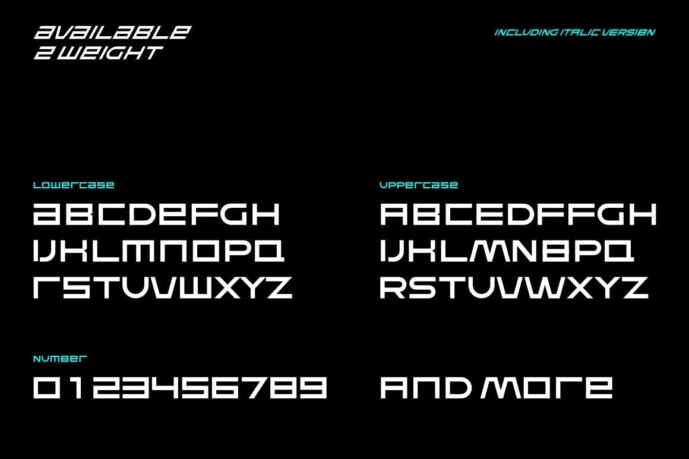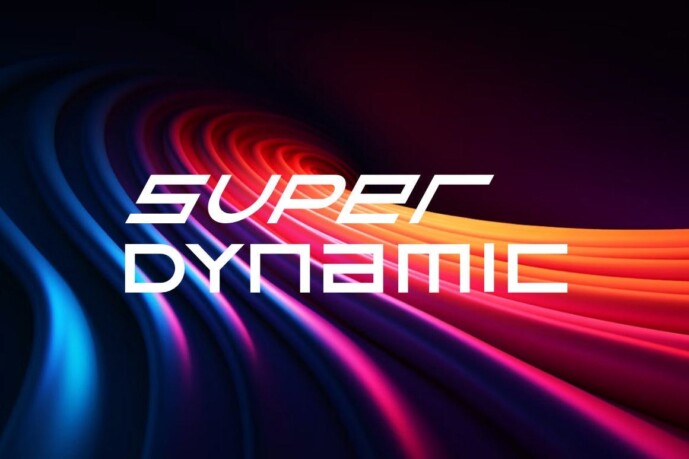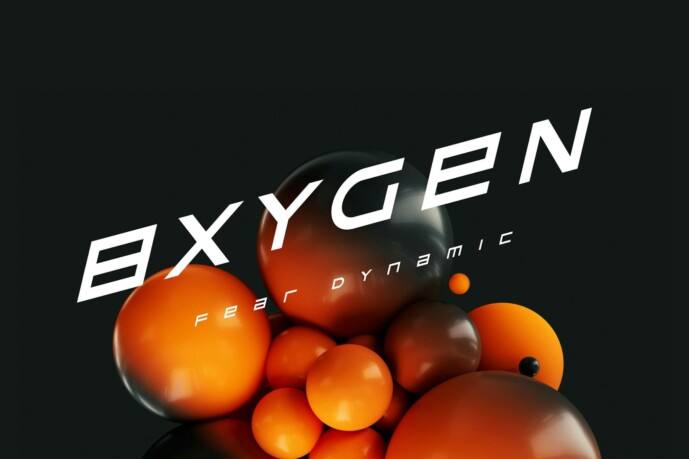
Fear Dynamic Font
Fear Dynamic Font. Create a digital presence as cutting-edge as your ideas. This collection of fonts isn’t just about aesthetics; it is about precision engineering for the digital world. Our fonts feature clean lines, optimal readability on all screens, and a design language that speaks the language of innovation.